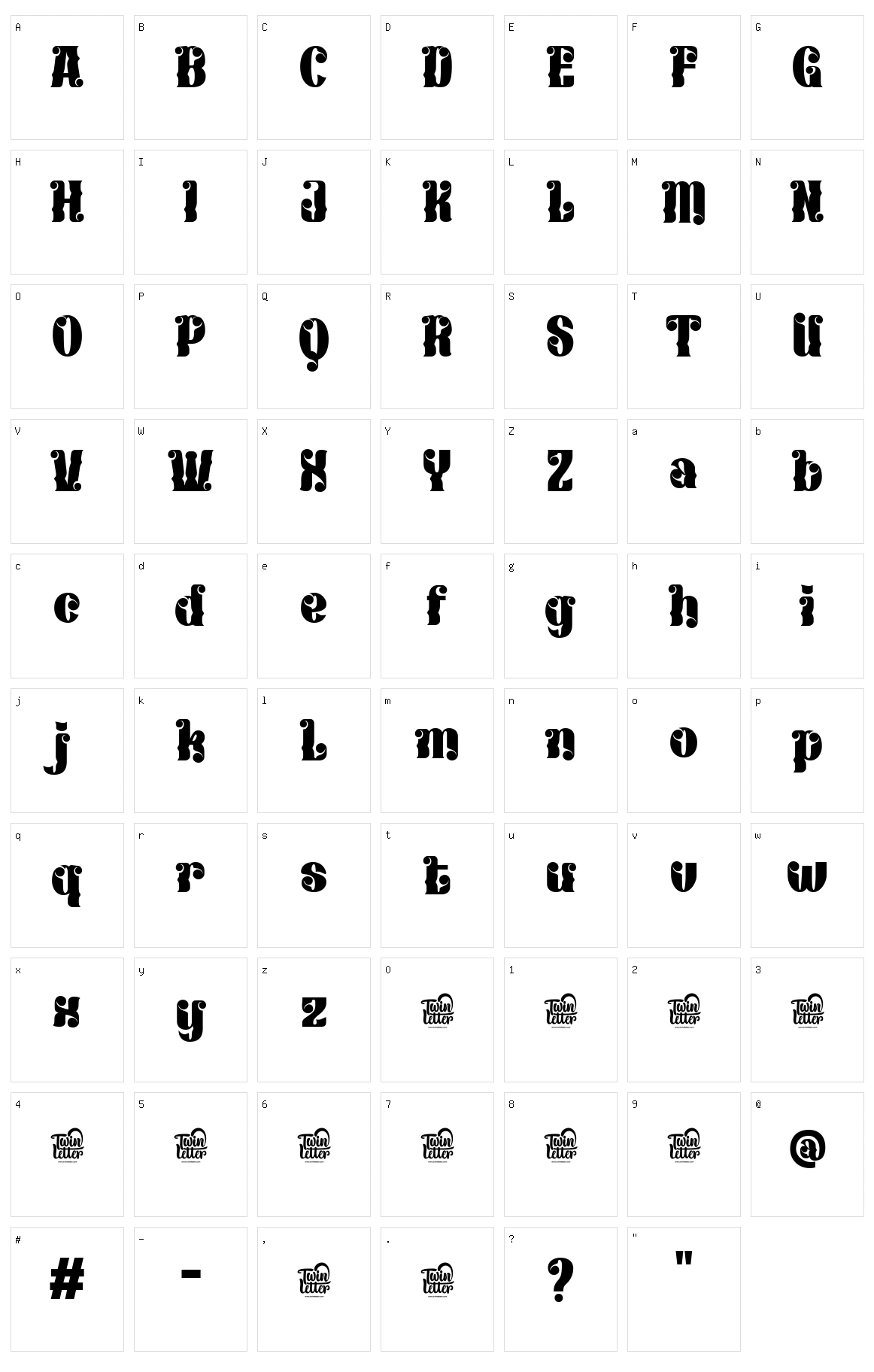
The free font Kexinu is carefully designed by twinletter, showcasing a thoughtful balance of creativity and usability and falls under the Groovy font style. When you download the ZIP file, it contains only 34.07 KB of font files, making it lightweight and quick to download. Please review the license details below to understand permitted usage and distribution rights. If license information is not available, we recommend using this font for personal projects only or contacting the author directly for commercial usage permissions.